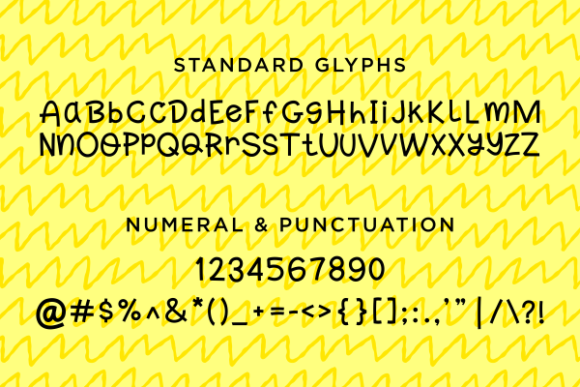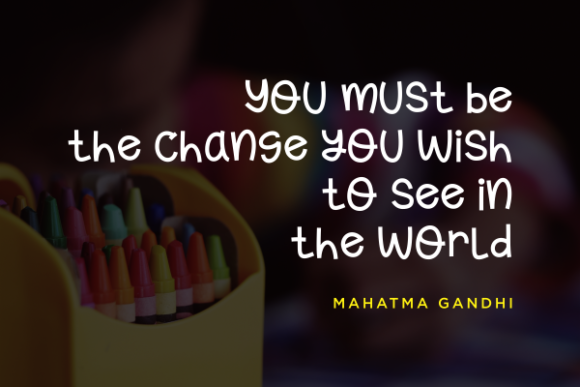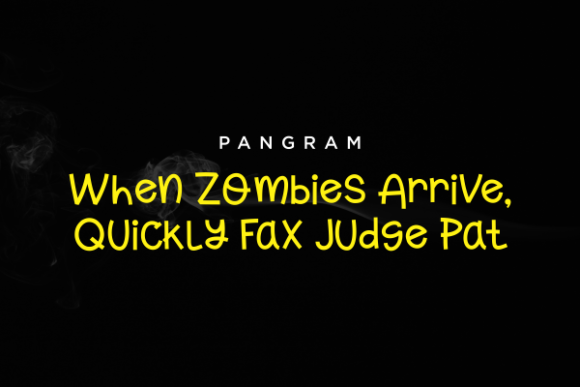
Introduction to Lompo Font Font
Fonts play a crucial role in design, and the Lompo Font font is a typeface that brings both character and versatility to any project. Whether you’re working on a branding project, a website, or a print design, the Lompo Font font offers a unique style that can elevate your work.
Lompo is a cute and playful display font with a childlike feel.
Get inspired by its whimsical vibe .
Key Features of Lompo Font Font
Why Choose Lompo Font Font?
The Lompo Font font is more than just a typeface – it’s a design tool that helps you communicate your message with style and clarity. Its unique character set and versatile design make it suitable for a wide range of applications, from elegant invitations to bold headlines.
With its carefully crafted letterforms and balanced proportions, the Lompo Font font ensures readability and visual appeal across all mediums.
What makes Lompo Font font special?
The Lompo Font font stands out with its unique design, exceptional readability, and versatility across various design applications.